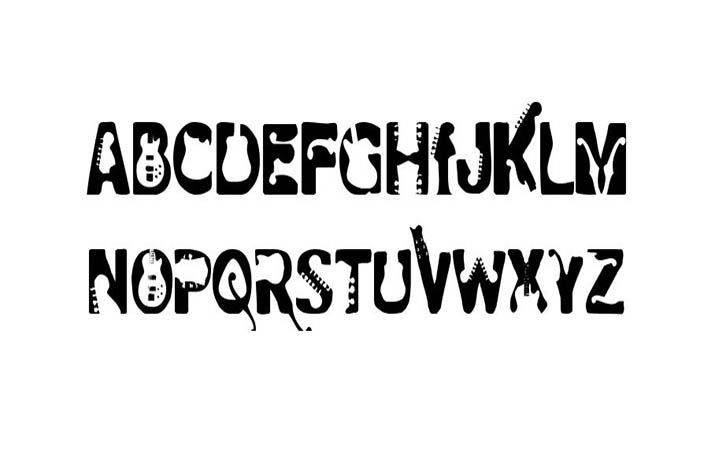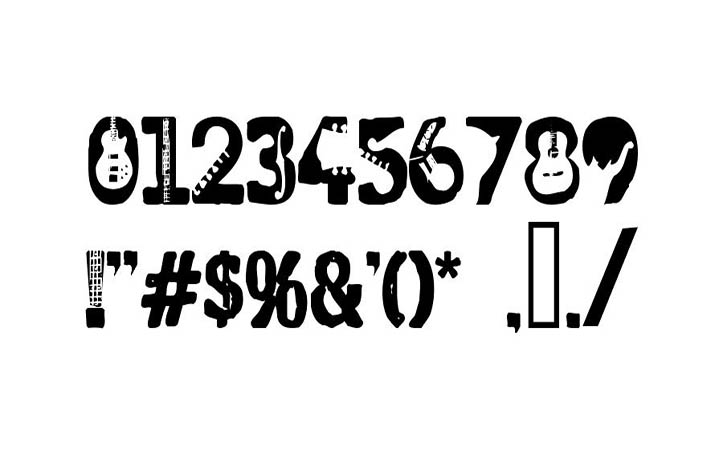
Rock Electric Font is a fancy comic typeface that comes with bold edgy letterforms. Try it out for music-related projects, album covers, concert posters, and more.
This font family comes in a single-weight with TTF format. This style contains 91 glyphs like uppercase, lowercase, numbers, symbols, and a few punctuations. Plus, it also supports 34 languages.
This bold and comical rock and roll font is designed to call attention to itself, so use it for your titling, knowing that all eyes will be on your cover.
A great choice if you’re looking for a kid-friendly comic book, album covers, concert posters, banners, headers, titles, flyers, kid’s elements, or cartoon font for your next project.
- Uppercase & lowercase letters, numbers, symbols, and punctuation
- 91 unique glyphs
- 34 multilingual languages support
| Style: | Fancy, Cartoon, Display |
- Try it out for book covers, game graphics, product designs, banners for social media, advertisements, headers, titles, cards for special events, product packaging, posters, headers, titles, advertisements, headings, product packaging, cartoon posters, comics, headers, titles, posters for social media, signs for product designs, flyers, signs, movie posters, special quotes, and a lot more.
This font supports 34 languages.